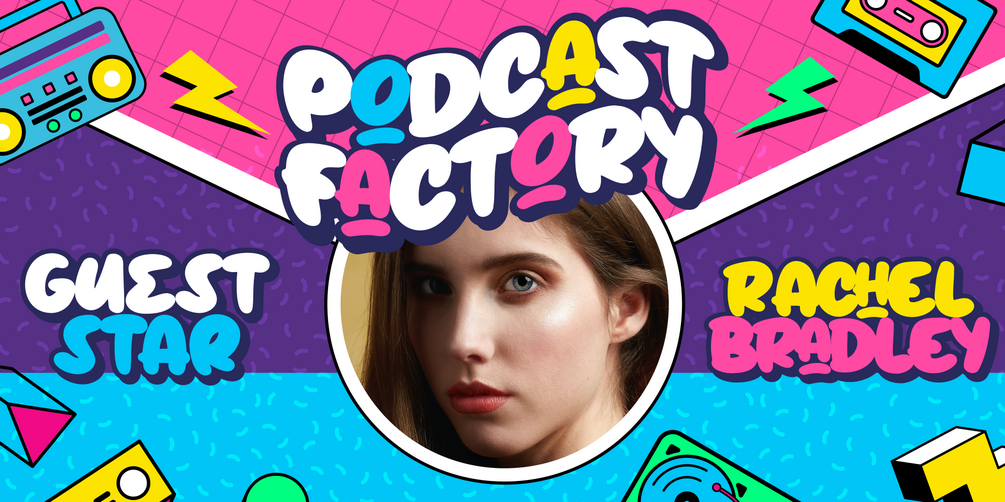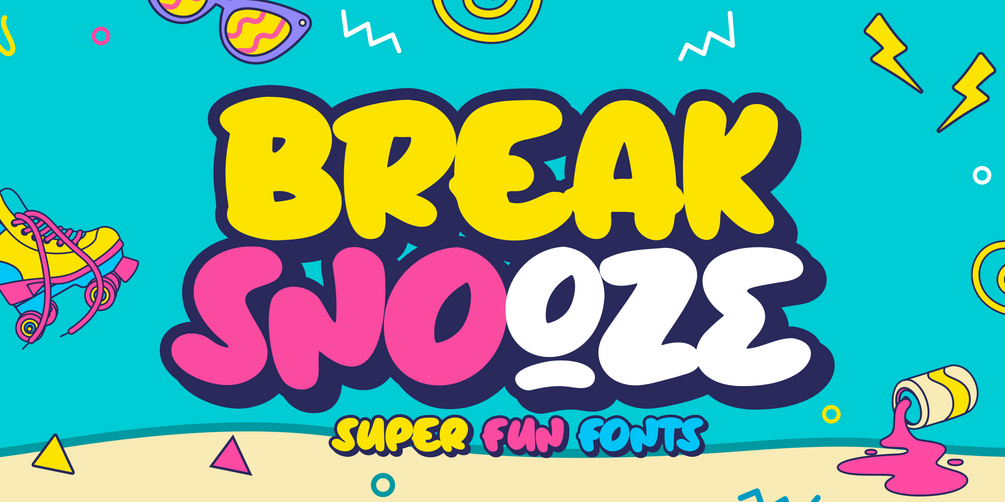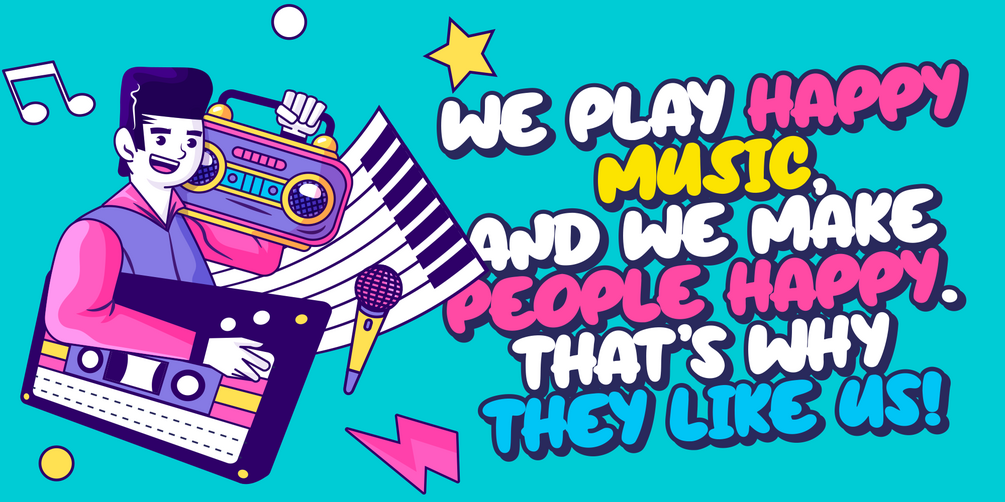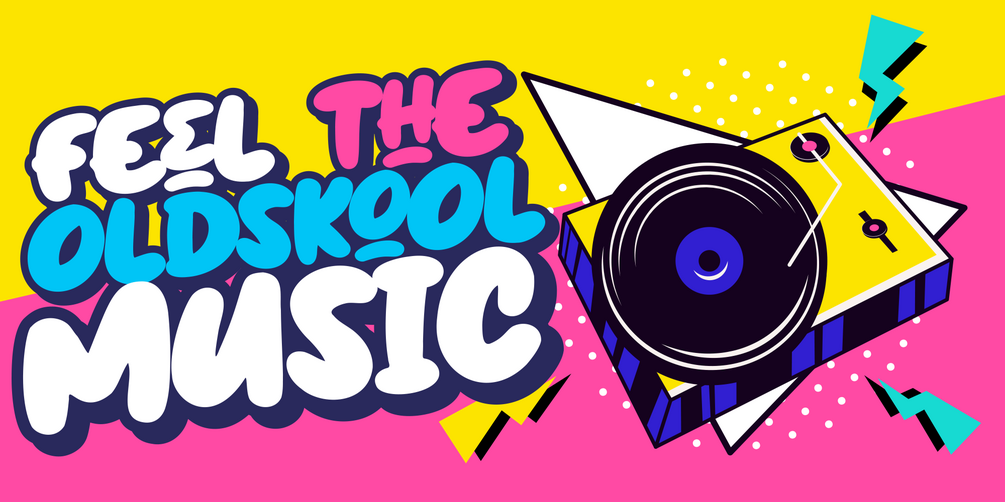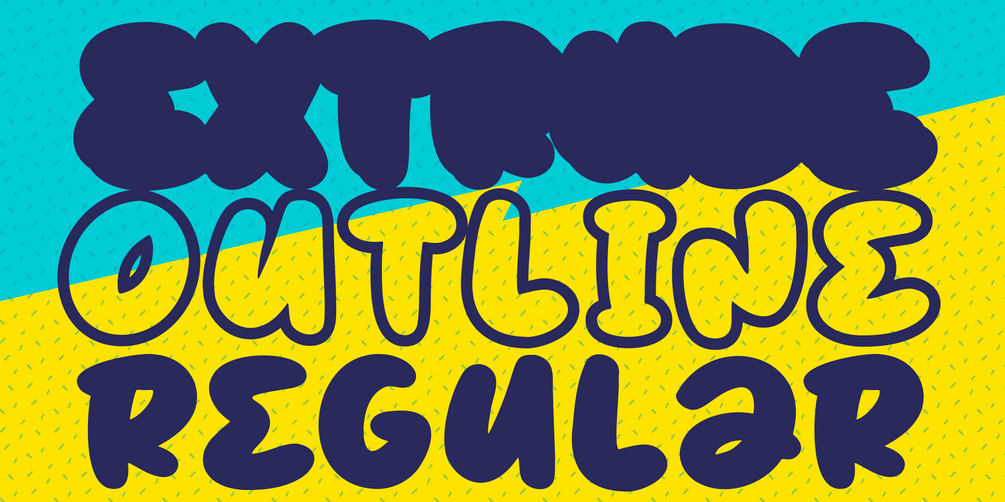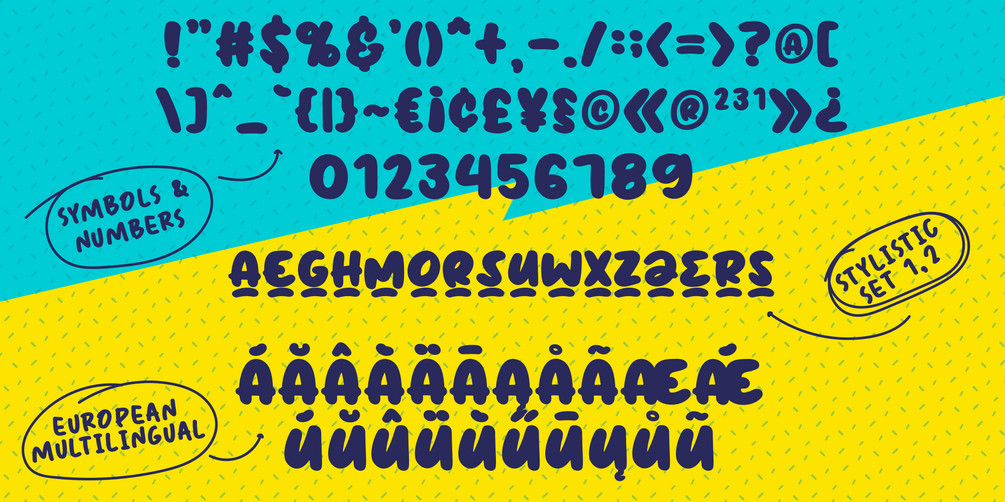
Break Snooze - 90s Fonts
Introducing, Break Snooze fonts.
Break Snooze have a unique shape, rounded and fun.
Comes with 3 style Regular, Outline and Extrude,
then can mix and match with Stylistic Set.
What's Included Inside The Fonts ?
• Uppercase
• Lowercase
• Symbols
• Numerals
• Stylistic Set 1
• Stylistic Set 2
• European Multilingual